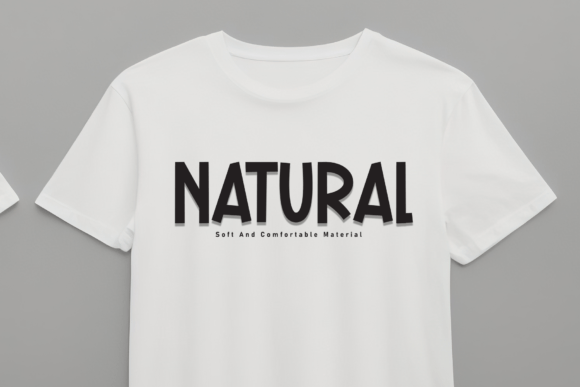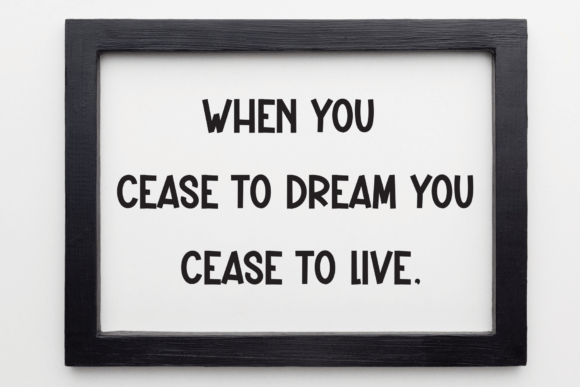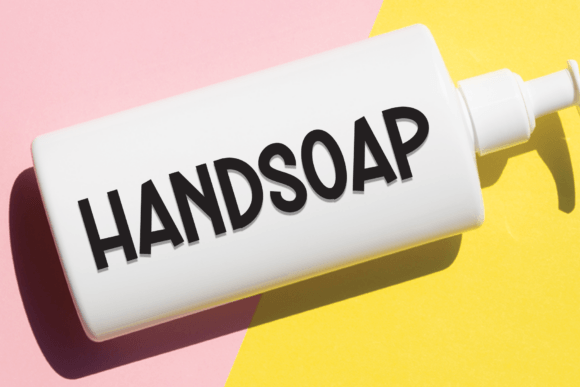
Funky Floral Font
Brighten up your designs with Funky Floral , a playful and bold font bursting with personality! Perfect for fun projects like invitations, posters, branding, and crafts, this font pairs beautifully with floral or whimsical themes. Add a lively, creative vibe to your work with Funky Floral!